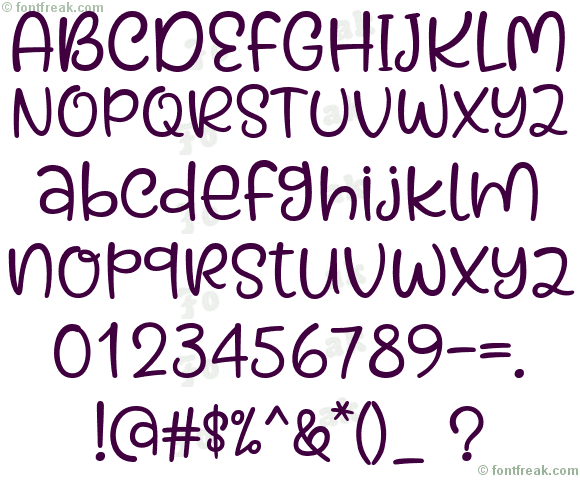
Kaylonick
About Kaylonick
The Kaylonick font, designed by Situjuh Nazara, is a captivating display typeface that merges playful elegance with contemporary style. This unique font features a handwritten aesthetic, characterized by its fluid strokes and casual charm. The stroke weight is consistent, providing a balanced look, while the gentle curves and whimsical elements add a touch of personality. The spacing is well-considered, allowing for legibility without sacrificing the artistic flair that defines the font.
Kaylonick is particularly versatile and can be used in various creative applications. It shines in wedding invitations, where its charming script can convey warmth and intimacy. Additionally, it’s an excellent choice for restaurant menus, enhancing the dining experience with its inviting style. Movie posters also benefit from the font’s boldness and originality, making titles stand out and capture attention. Content creators, such as bloggers and social media influencers, will find that Kaylonick lends a unique touch to digital graphics, making it perfect for eye-catching headlines.
The target audience for the Kaylonick font includes graphic designers seeking to elevate their projects, small business owners aiming for distinctive branding, and content creators looking to add a personal touch to their visuals. With its freeware license, this font is accessible for all, encouraging creativity without financial constraints.
What sets the Kaylonick font apart is its ability to combine playfulness with sophistication, making it suitable for both formal and casual contexts. Its distinctive style makes it a memorable choice, ensuring that any text stands out in a crowd. For anyone looking to enhance their design projects, the Kaylonick font free download is an opportunity not to be missed.